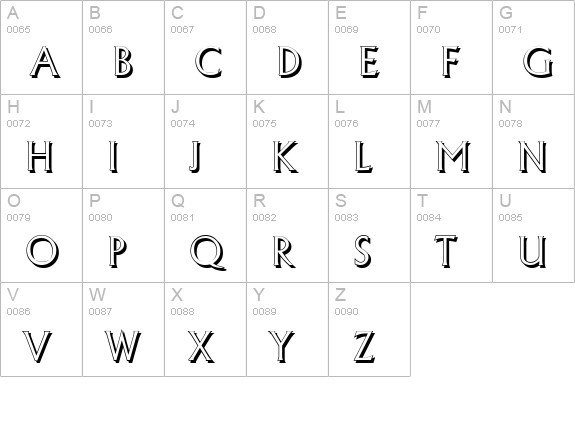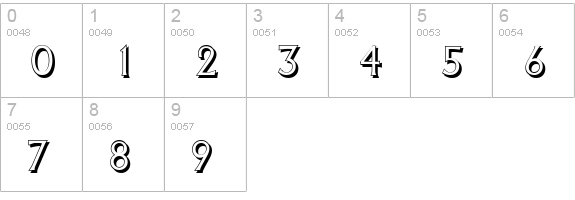
AdelonShadow-Light-Regular is a refined, elegant variant in the AdelonShadow typeface family \xE2\x80\x94 well suited to elegant body text, refined sub-headings, and luxury branding.
AdelonShadow-Light-Regular is a stunning display font that exudes elegance and sophistication. This modern typeface features a unique shadow effect that adds depth and dimension to your designs. The sleek and stylish letterforms make this font perfect for a wide range of projects, from branding to packaging to web design. One of the best things about AdelonShadow-Light-Regular is that it is completely free to download. You can easily access this beautiful font at FontsMarket.com and start using it in your projects right away. Whether you're a professional designer or a hobbyist looking to add a touch of class to your creations, AdelonShadow-Light-Regular is sure to impress. Download it today and elevate your designs with this exquisite typeface.